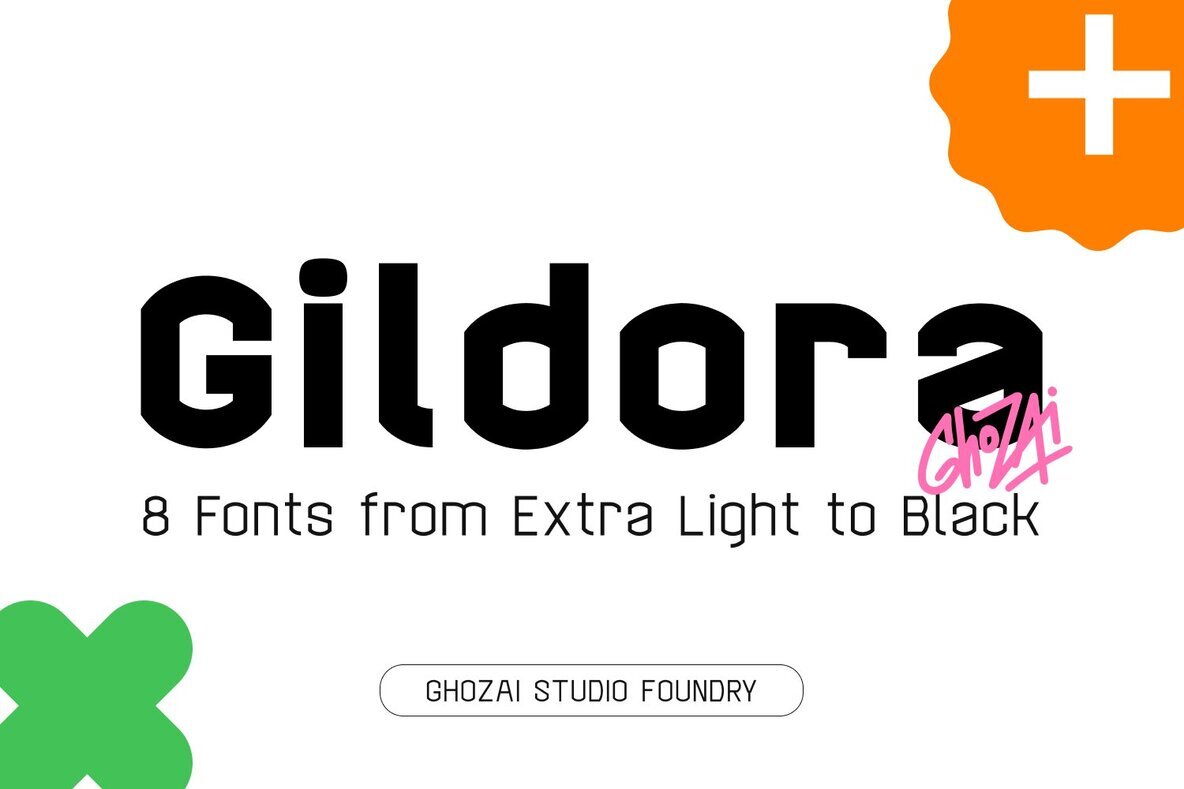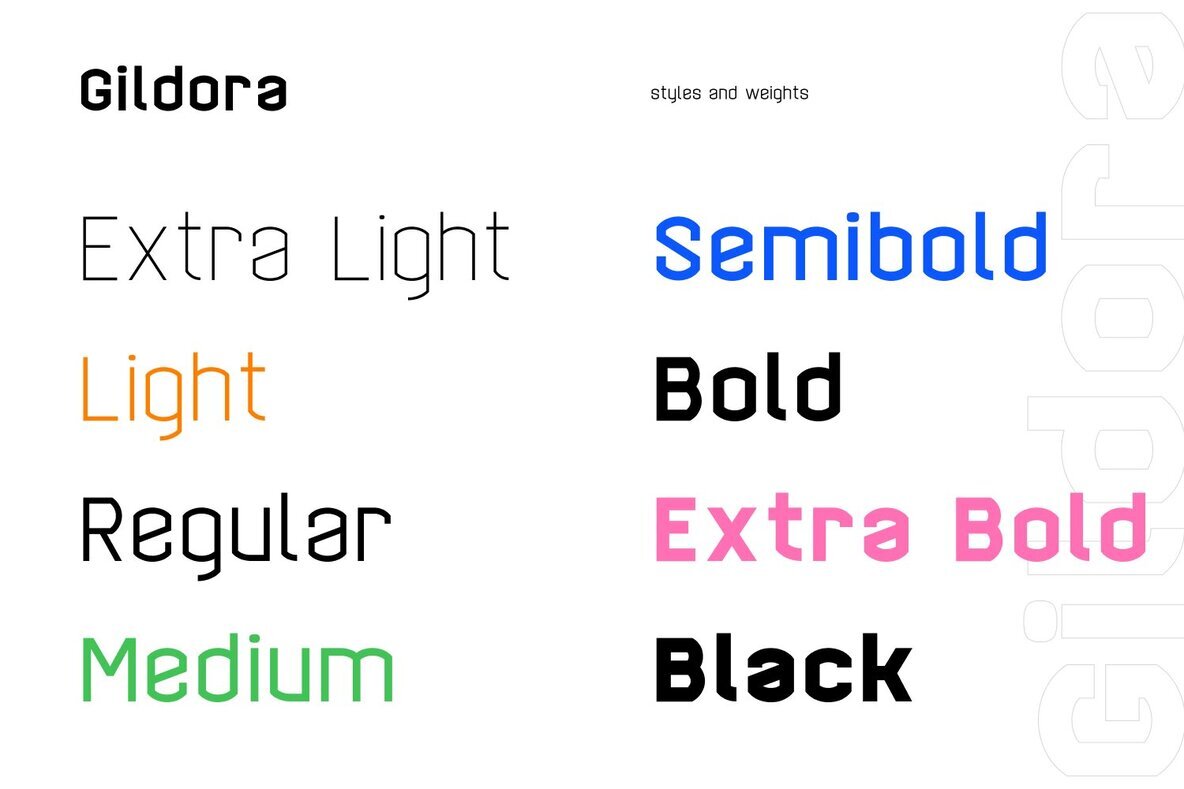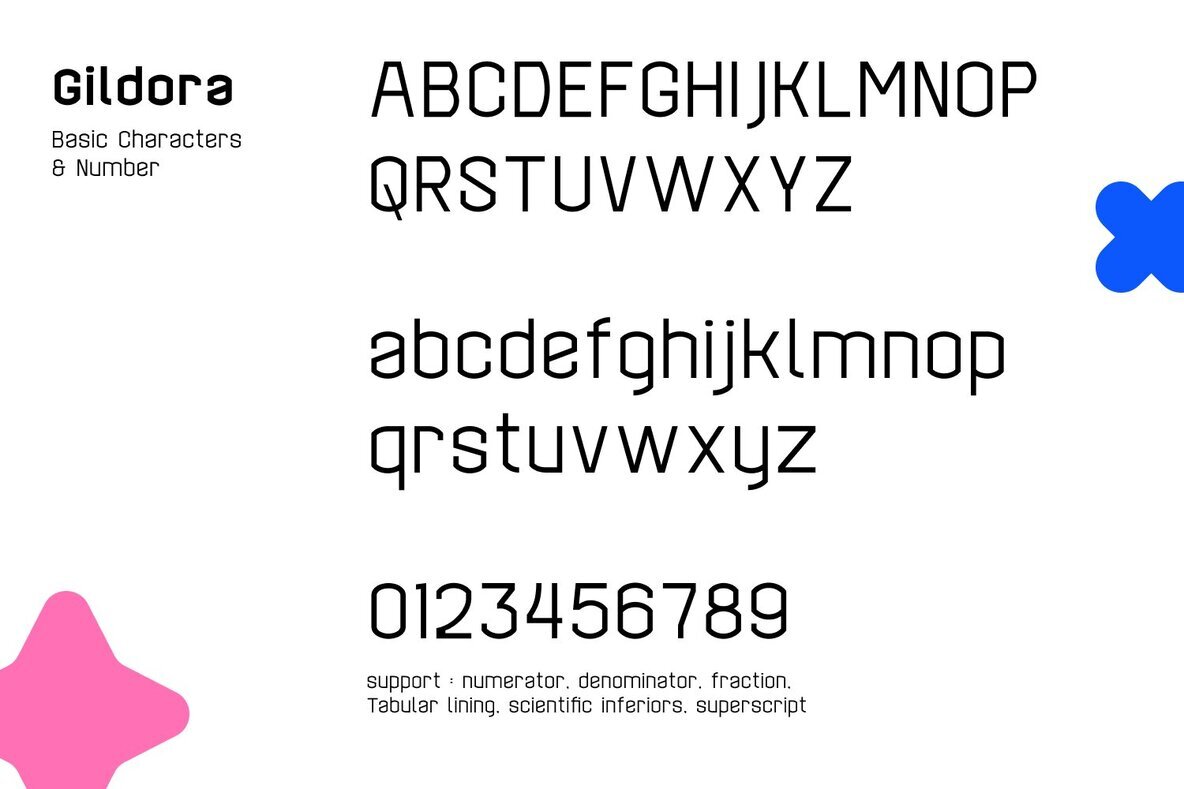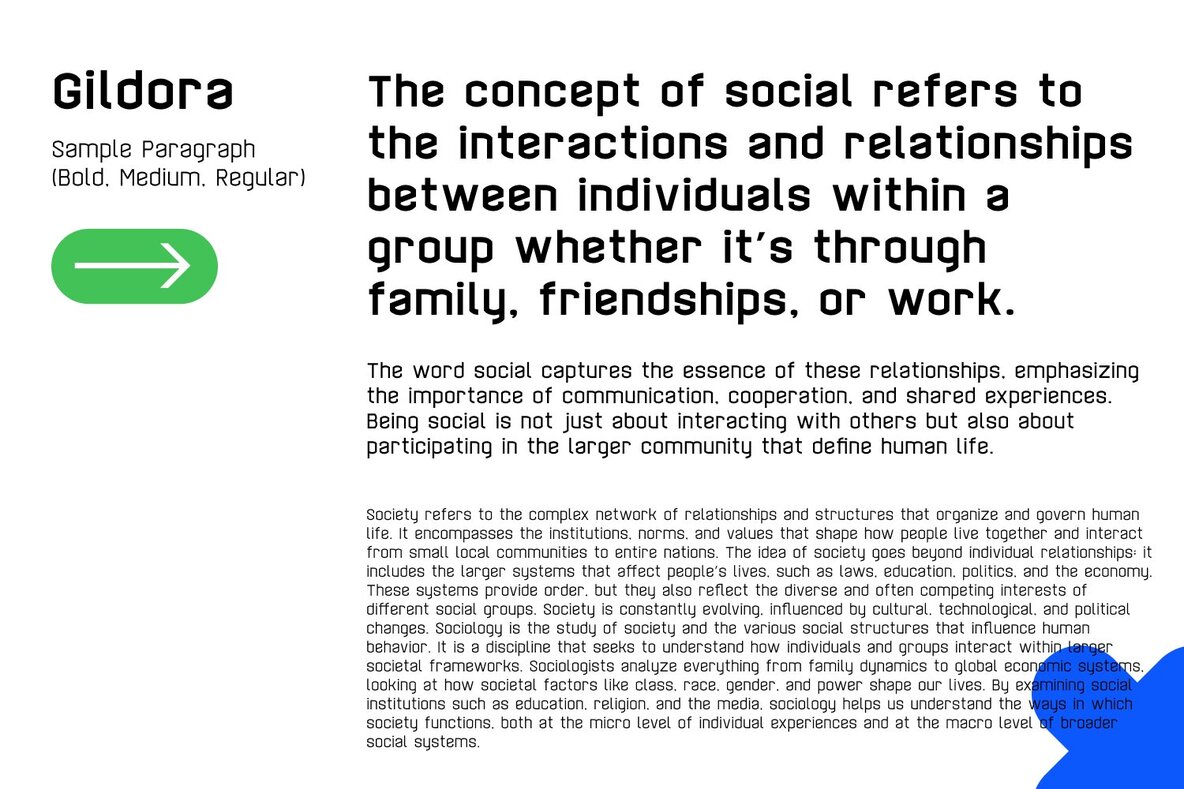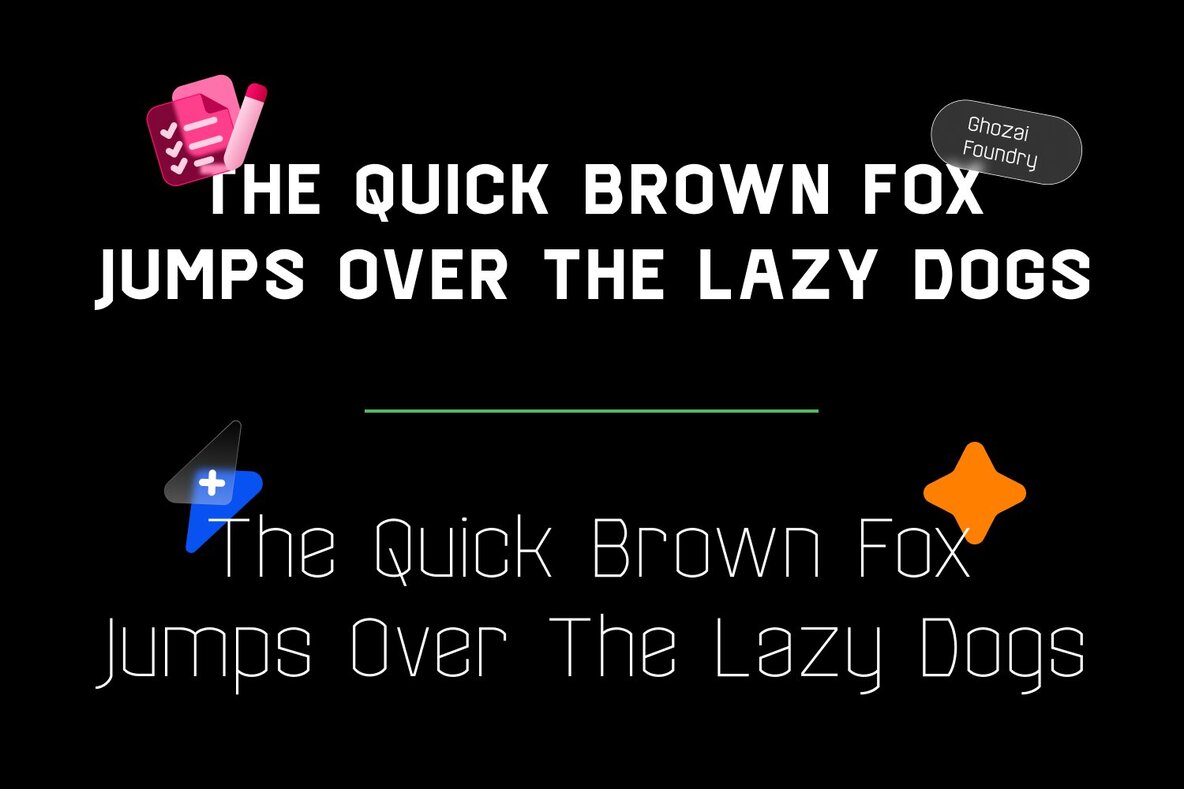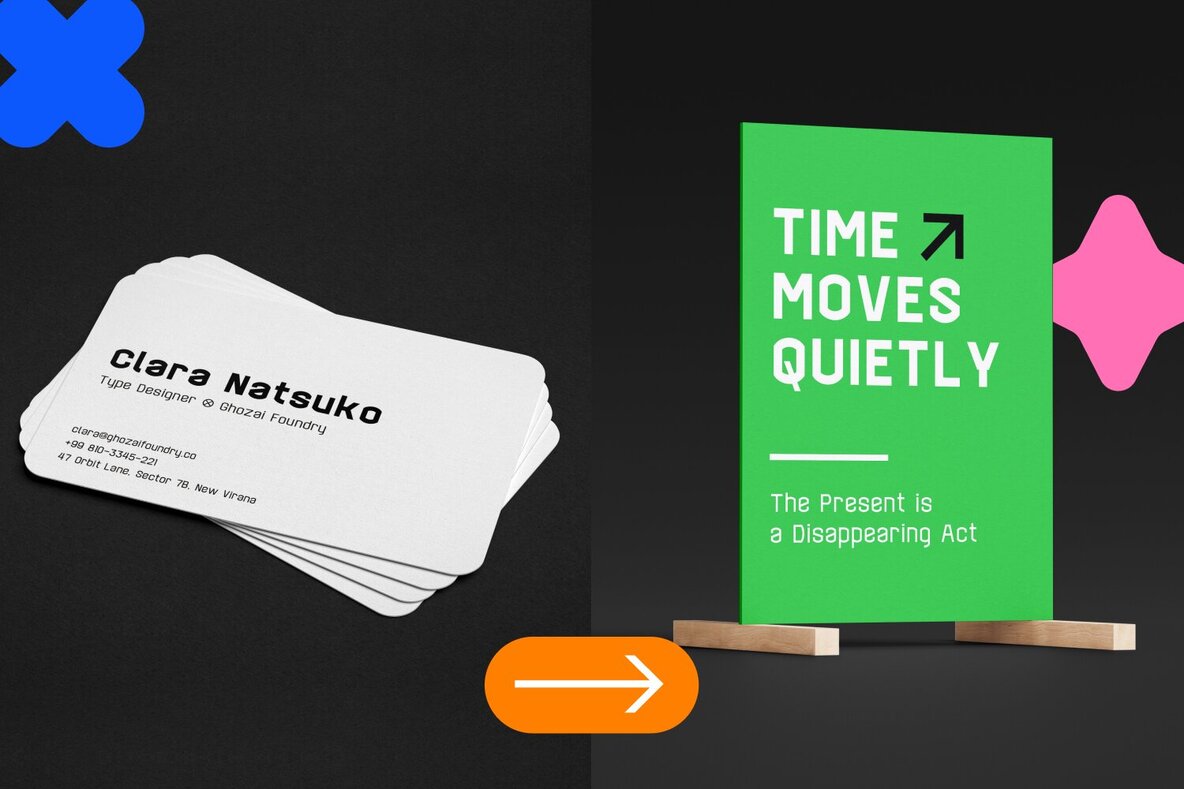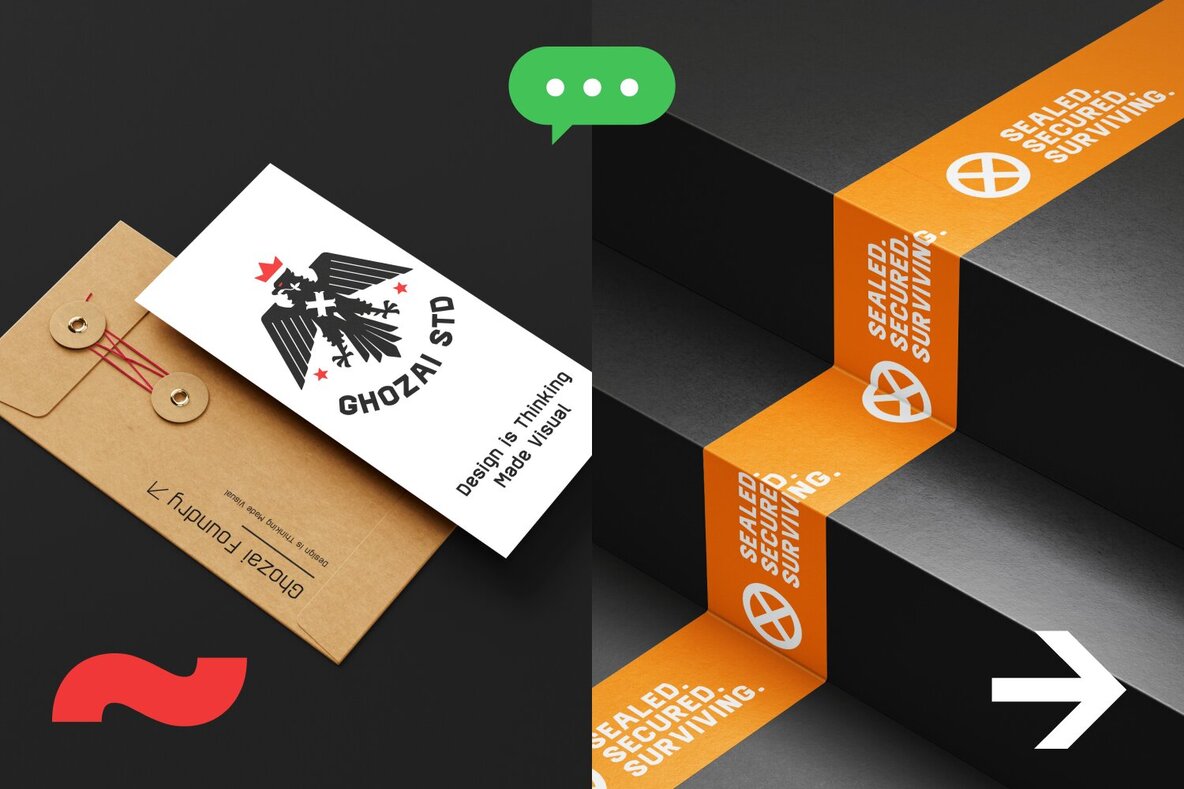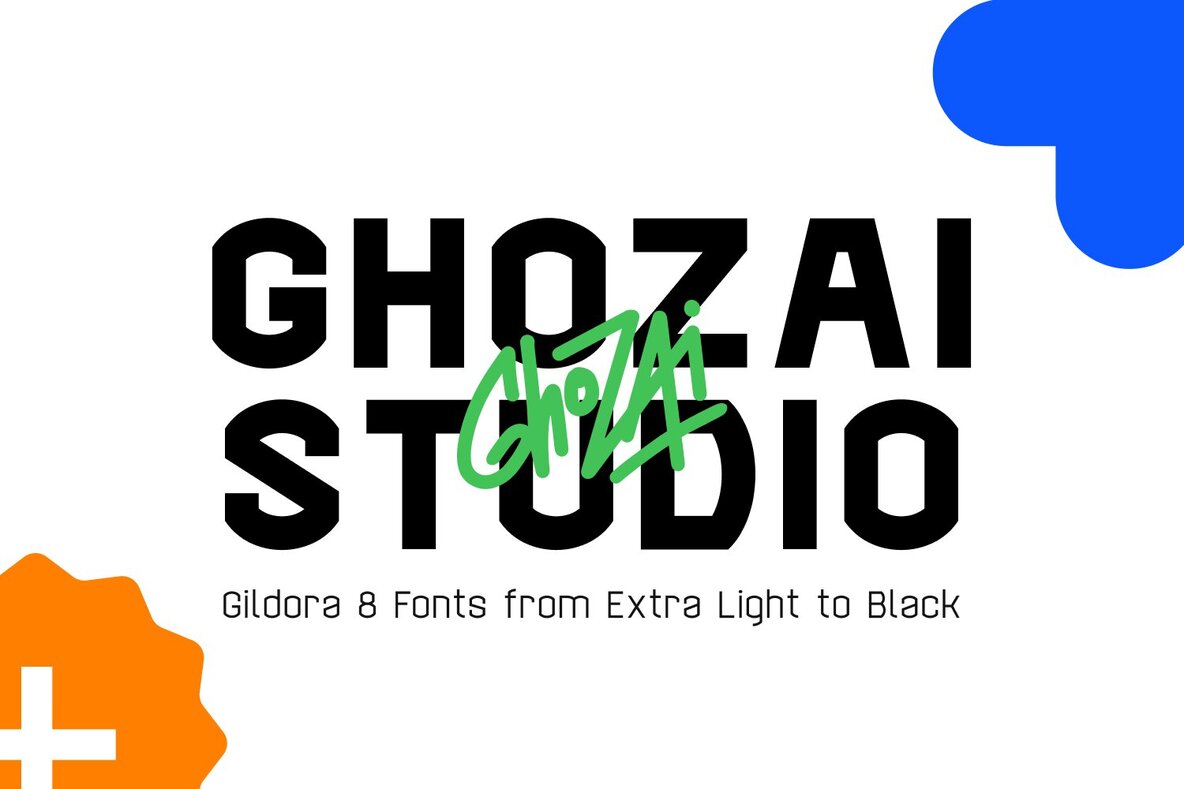
Gildora Font
Gildora is a grotesk-sans font family that features 8 weights, ranging from Extra Light to Black. With a wide variety of weights, symbols, OpenType features, and multilingual glyph support, Gildora ensures versatility across different languages and design needs. Its modern, clean, bold design makes it ideal for a variety of applications, including display, branding, signage, festival posters, sport, and more. Whether creating impactful headlines, distinctive logos, or clear signage, Gildora delivers both style and functionality. Its flexibility allows it to adapt to different design styles, making it the perfect choice for any project that requires a bold and contemporary touch.